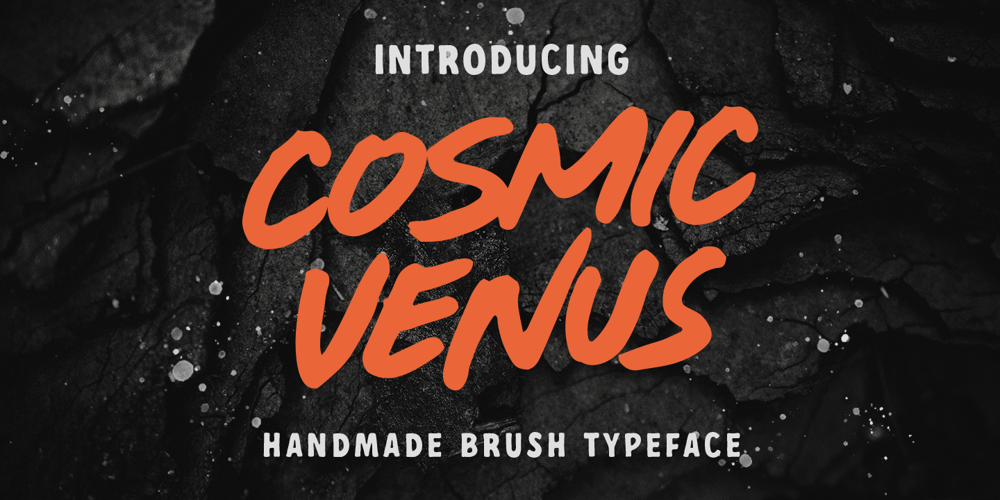
Cosmic Venus
Cosmic Venus font
Cosmic Venus Font Family was designed by Septianto Nugroho and published by Ironbird Creative. Cosmic Venus contains 1 styles and family package options. Cosmic Venus – Brush TypefaceCosmic Venus is a handmade brush typeface with bold and strong feel. This type of font perfectly made to be applied especially in headlines which is need a standout font, and the other various formal forms such as labels, logos, magazines, books, packaging, fashion, stationery, novels, labels or any type of advertising purpose.Features : Uppercase & lowercase (alternates) PUA encoded ADDITIONAL INFORMATIONFeel free to convert the fonts to web fonts for your personal/business website.You may not use the fonts in templates or for sale/free or on template websites. ( web/print/app )For upgrading license please contact me. Upgraded licenses are required for apps, books, television, commercial exhibition, film, gaming, print on demand products, etc. Simply email me to : ironbirdcreative@gmail.comHope you enjoy the font, please feel free to comment if you have any thoughts or feedback. Thanks for purchasing and have fun!Regards,Ironbird Creative